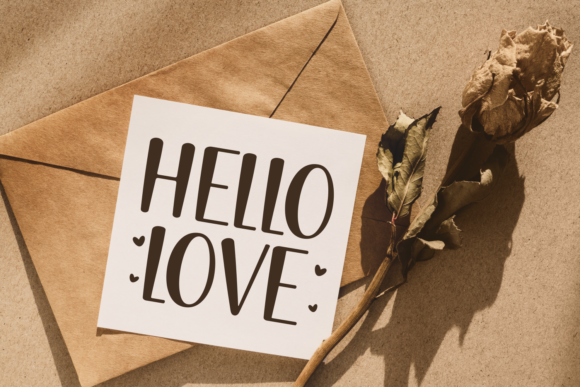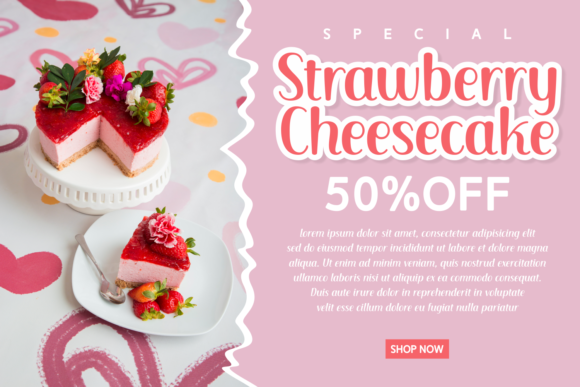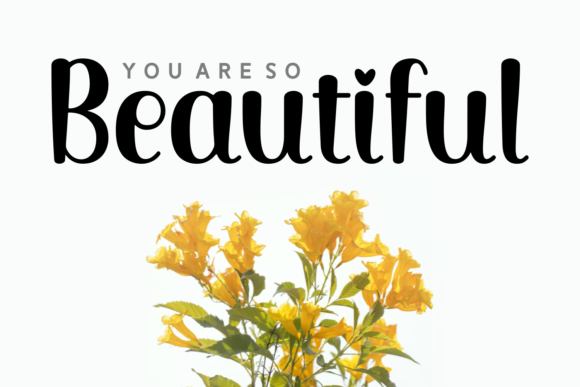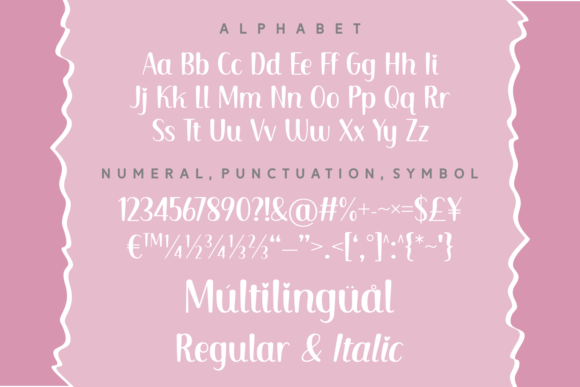
Moodle Font
About Moodle Font
Moodle is a chic, quirky, and trendy handwritten font that brings a touch of style and playfulness to various design ideas. This font is crafted to seamlessly blend chic elements with a quirky charm, creating a trendy and fashionable typeface. Whether you’re working on branding, invitations, posters, or any design project that calls for fun and jolly vibes, Moodle proves to be an ideal choice.
The chic and trendy characteristics of Moodle set it apart, making it well-suited for creating designs that exude a contemporary and fashionable flair. The quirky handwritten style adds a unique touch, making it perfect for projects that aim to convey a sense of individuality and creativity.
This font is designed to be versatile, allowing it to adapt to different design contexts effortlessly. Its playful and jolly vibes make it suitable for a wide range of creative applications, allowing designers to experiment with various design possibilities. Whether you’re crafting a brand identity, designing invitations for special occasions, or creating eye-catching posters, this font proves to be a valuable asset in adding a touch of chic and trendy aesthetics.
Moodle not only brings a stylish and playful aspect to your designs but also offers readability and clarity. The well-defined letterforms ensure that your messages are communicated effectively, while the handwritten charm adds character and personality to your text.
In summary, Moodle is more than just a font; it’s a chic, quirky, and trendy handwritten typeface that enhances your creative projects with style and playfulness. Its versatility makes it suitable for a myriad of design applications, allowing you to infuse a sense of fashion and jolly vibes into your branding, invitations, and posters. Let Moodle be the font that adds a touch of chic and trendiness to your design endeavors.